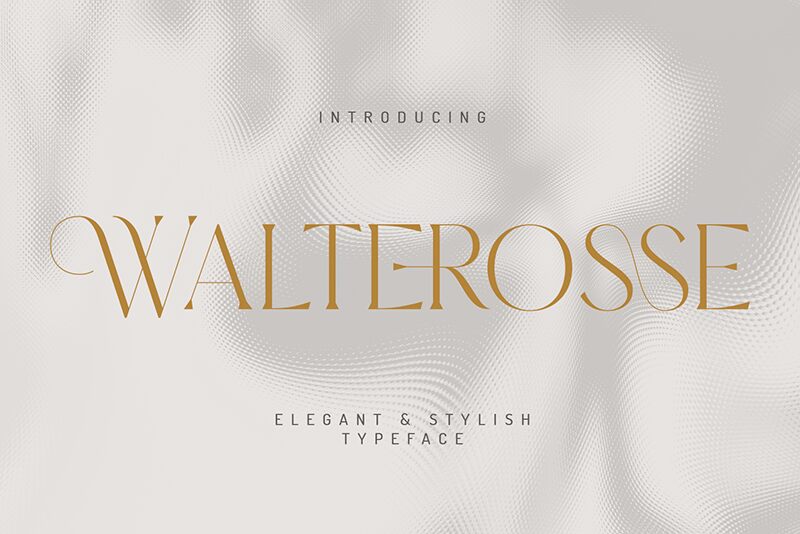
Walterosse, designed by Almarkhatype, presents an elegant serif font with a semi-light weight that exudes sophistication and charm. Its slender serifs and gentle curves blend to create a visual narrative of classic style meeting modern finesse. Each letter in Walterosse is crafted with attention to detail, offering an aesthetic appeal that is both refined and inviting.
The font’s versatility shines through its suitability for a wide range of creative projects. Whether gracing the pages of a luxury magazine, setting the tone on wedding invitations, or adding character to branding materials, Walterosse's distinctive serifs and balanced proportions ensure it stands out with grace. The semi-light weight of the font allows for exceptional readability while maintaining an airy, delicate presence on the page.
Walterosse's timeless elegance makes it a go-to choice for designers aiming to impart a sense of high-end sophistication to their work. Its unique characteristics promise to elevate any design project with its blend of classic beauty and contemporary clarity.